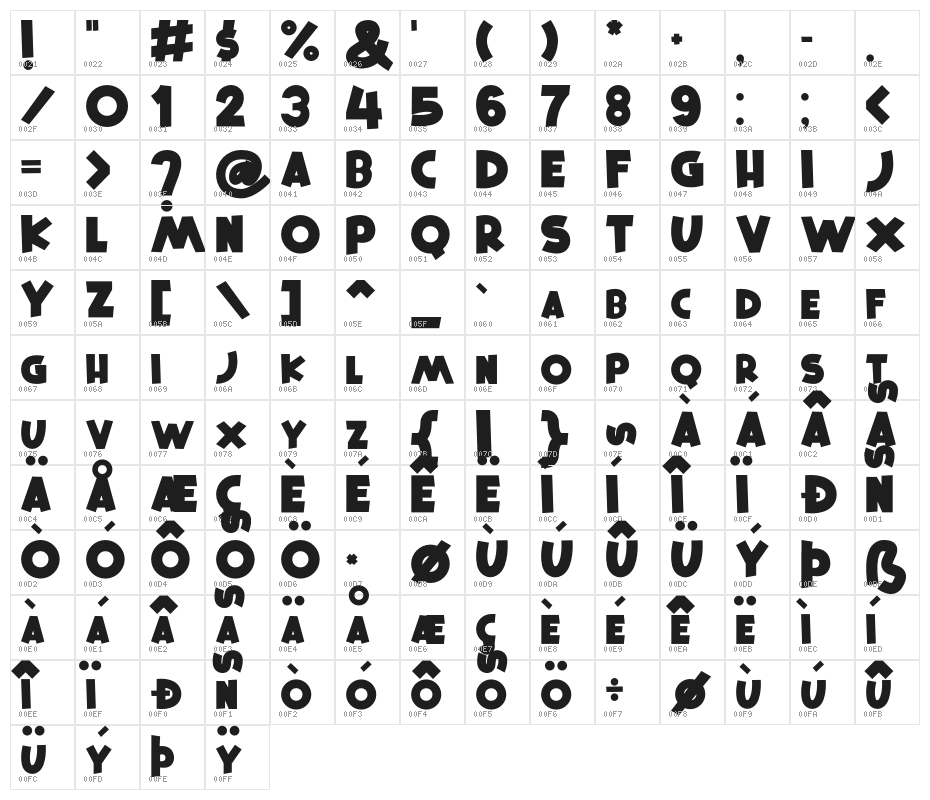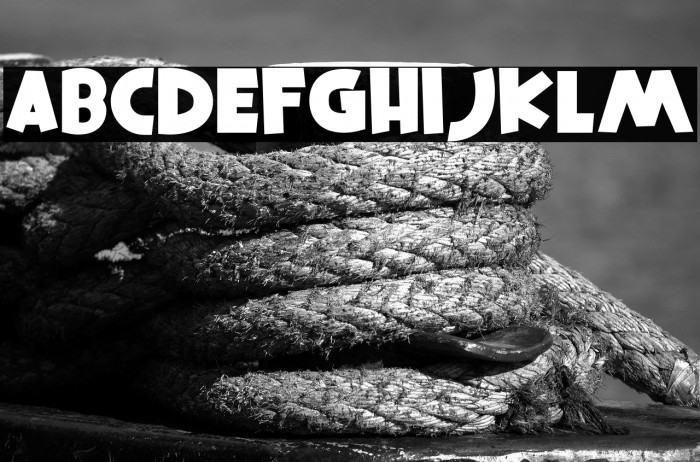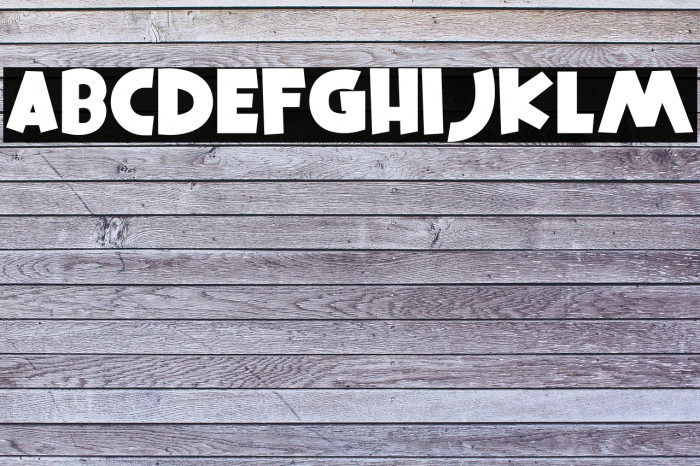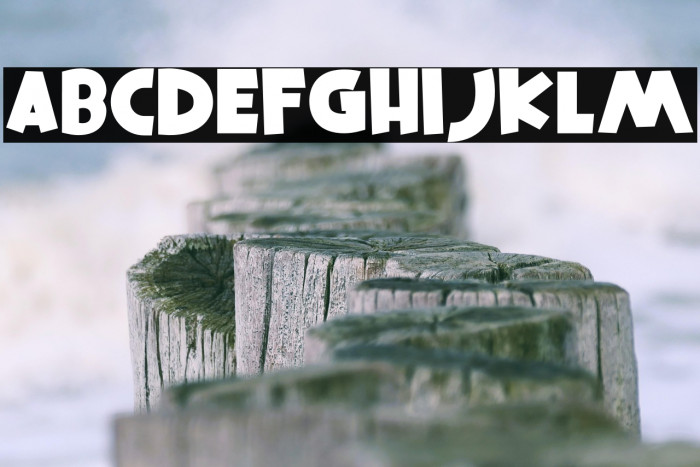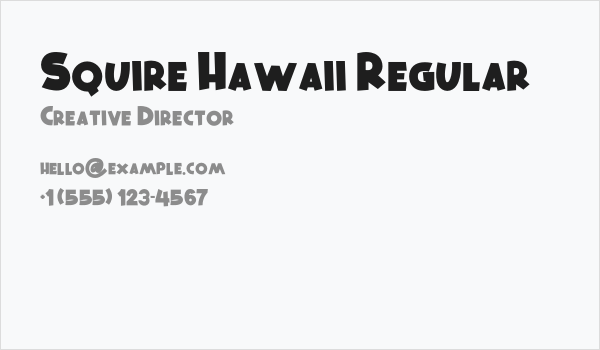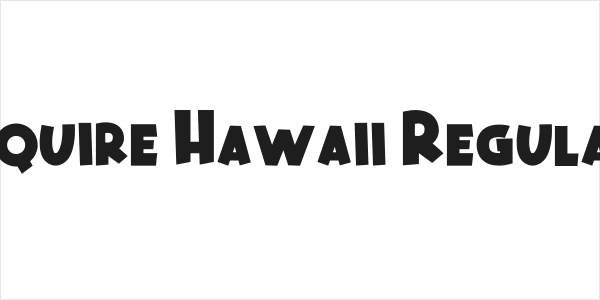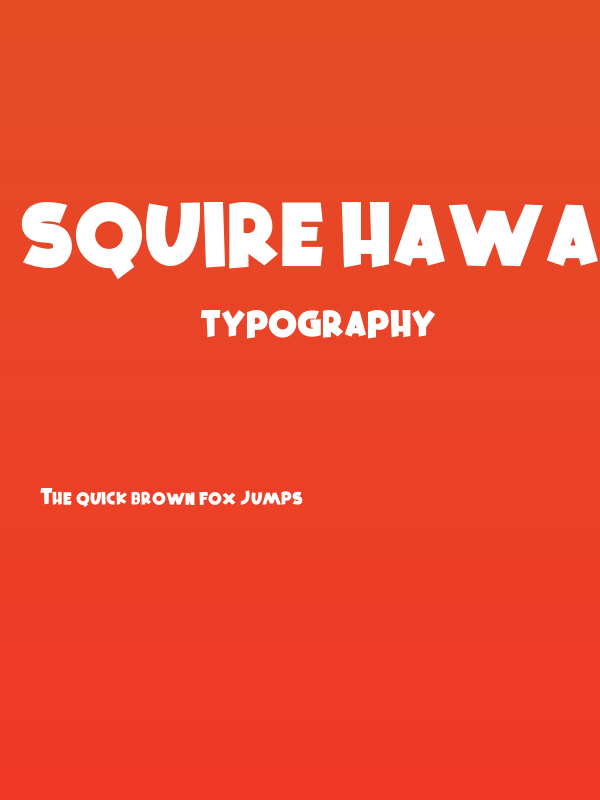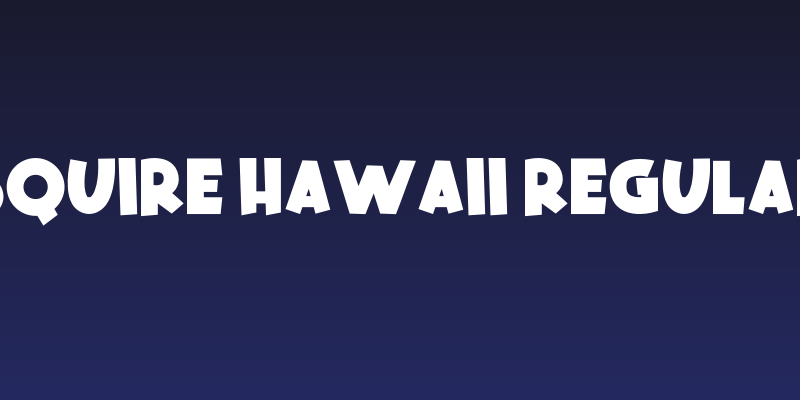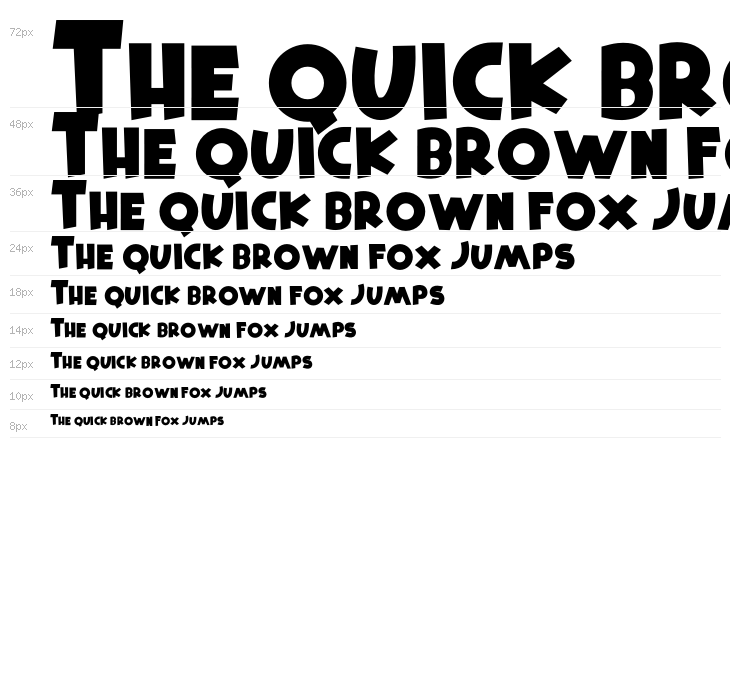
Squire Hawaii Regular Font
Squire Hawaii Regular Description
This font features a bold and playful design with a strong presence. The characters have a unique, slightly irregular shape that adds a whimsical and dynamic feel. The strokes are thick and consistent, providing a robust and impactful appearance. The overall style is reminiscent of retro or vintage themes, making it suitable for projects that require a fun and engaging look. The font's distinctive character shapes make it stand out, with a slightly condensed width that enhances its boldness. The spacing between characters is normal, ensuring readability while maintaining its decorative appeal.
| Proposed Projects | Ideal for posters, logos, children's books, and any project needing a fun, engaging typeface. |